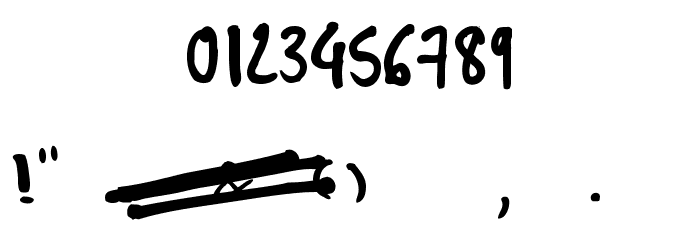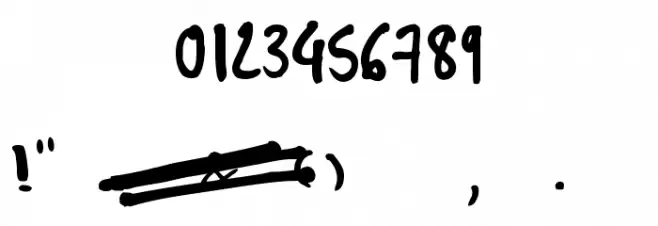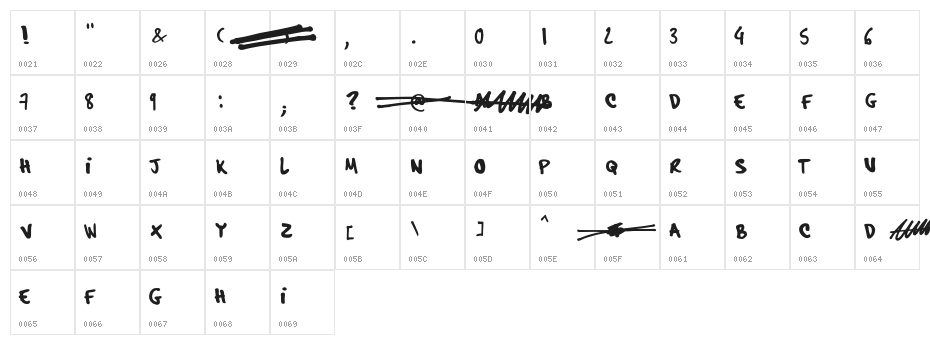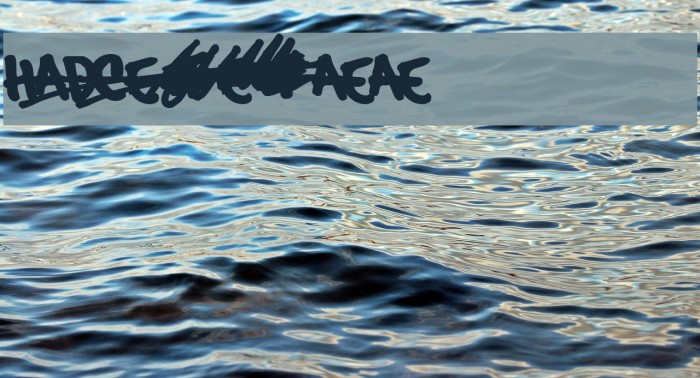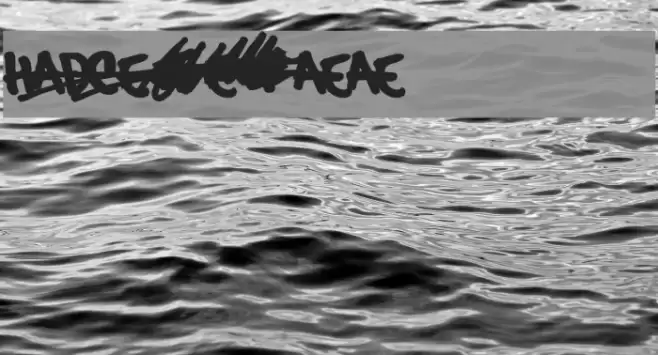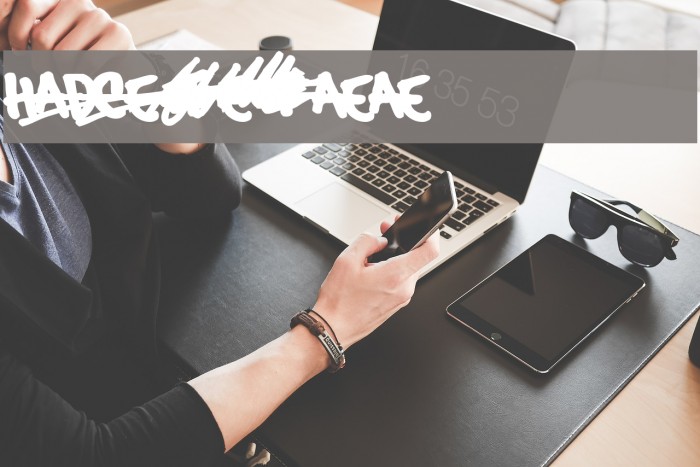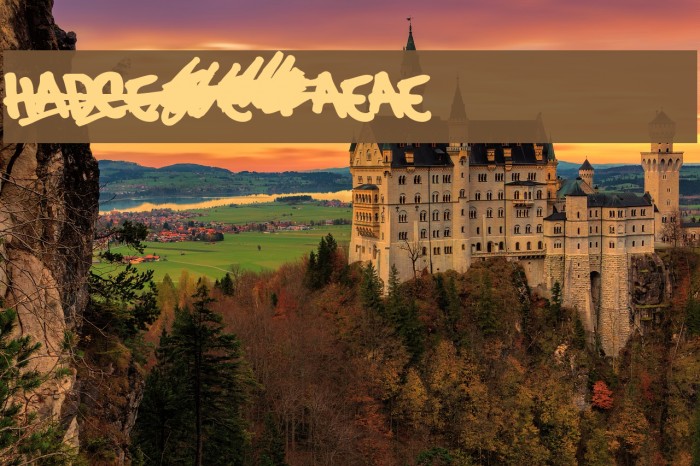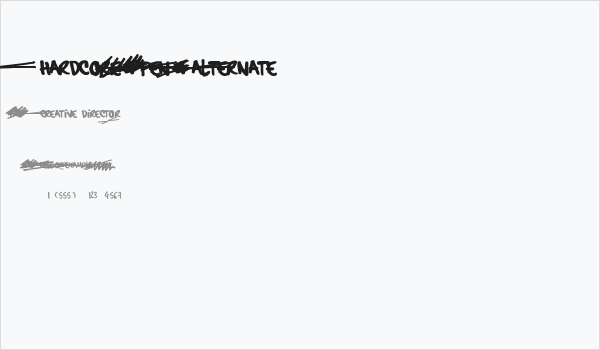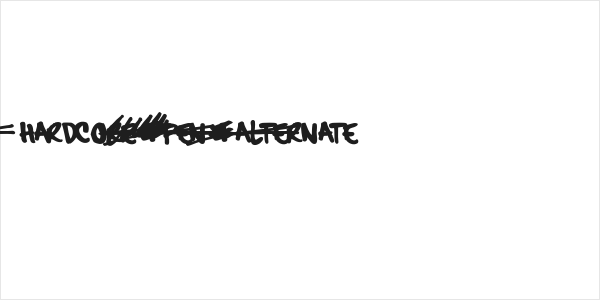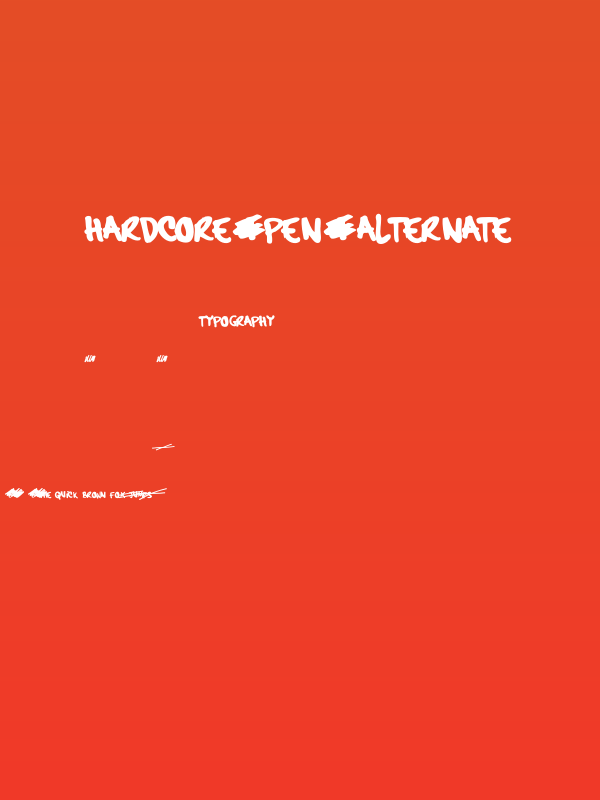
hardcore_pen_alternate Font
hardcore_pen_alternate Description
This font features a bold and expressive handwritten style, characterized by its thick strokes and playful, casual appearance. The uppercase letters are slightly larger and more pronounced, while the lowercase letters maintain a consistent flow, adding to the font's informal charm. Numbers are clear and bold, matching the overall aesthetic. Special characters are creatively integrated, maintaining the font's energetic and dynamic feel. The font's design is reminiscent of a marker or brush pen, making it suitable for projects that require a personal touch.
| Proposed Projects | Ideal for greeting cards, posters, social media graphics, and branding projects that require a personal and informal touch. |